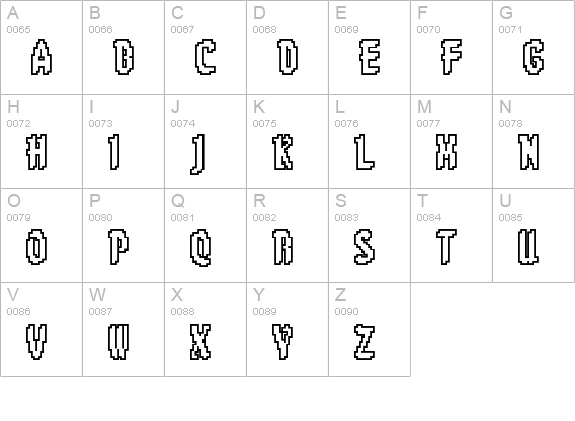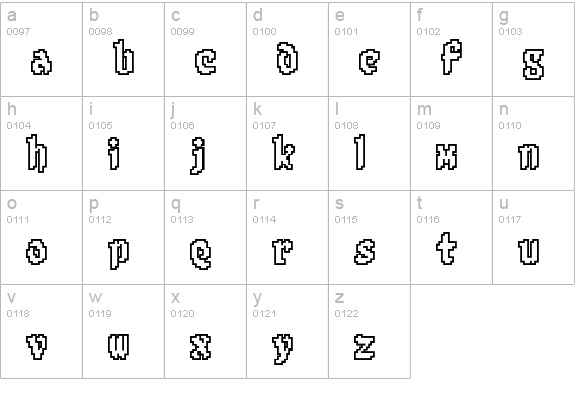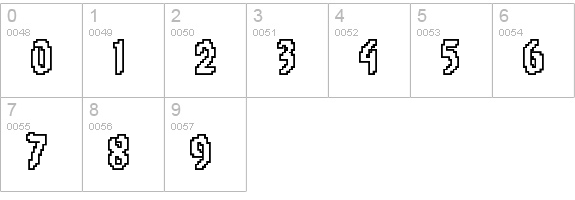
8-bit Limit O BRK Font Details
The 8-bit Limit O BRK font is a charming and nostalgic typeface that captures the essence of classic video games from the 1980s. With its pixelated design and retro aesthetic, this font brings a sense of fun and playfulness to any project. The clean lines and simple shapes make it easy to read and perfect for adding a touch of vintage flair to your designs. Best of all, the 8-bit Limit O BRK font is completely free to download at FontsMarket.com. Whether you're creating a poster for a gaming event, designing a website with a retro theme, or just want to add a bit of whimsy to your projects, this font is sure to delight and inspire. Embrace the nostalgia of the past with the 8-bit Limit O BRK font and let your creativity run wild.